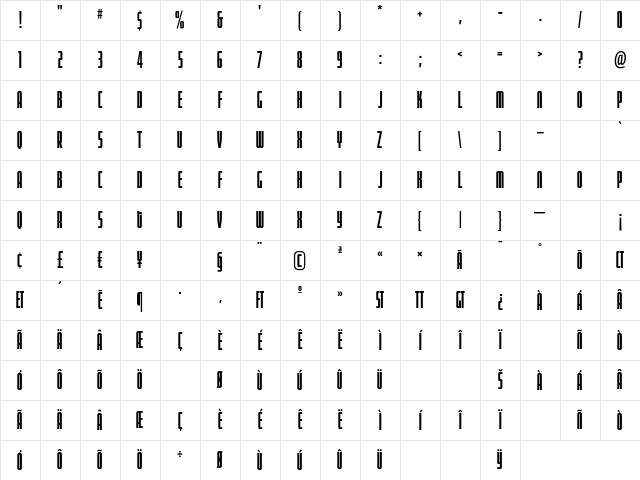
MorganTw1 Regular
Design Context for MorganTw1
MorganTw1 is a composed and adaptable typeface that performs quietly and consistently across a wide range of design contexts.